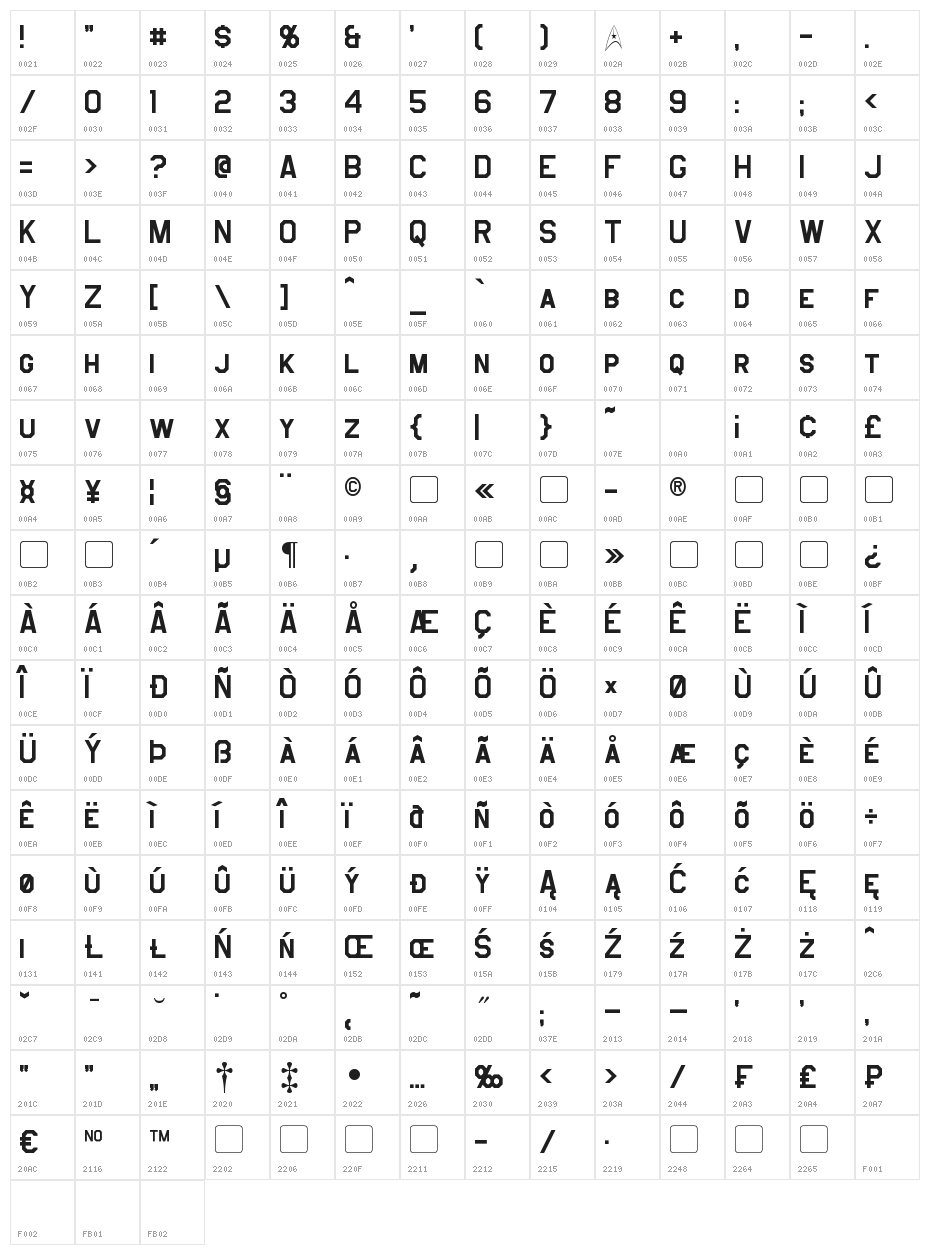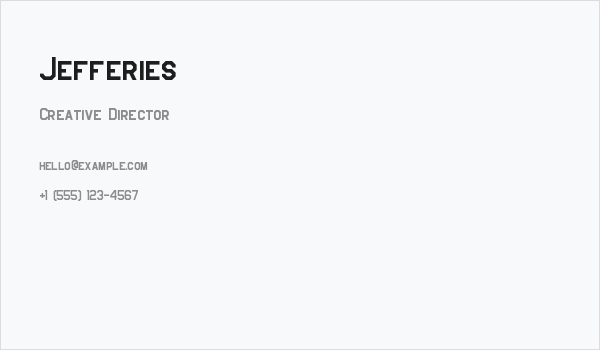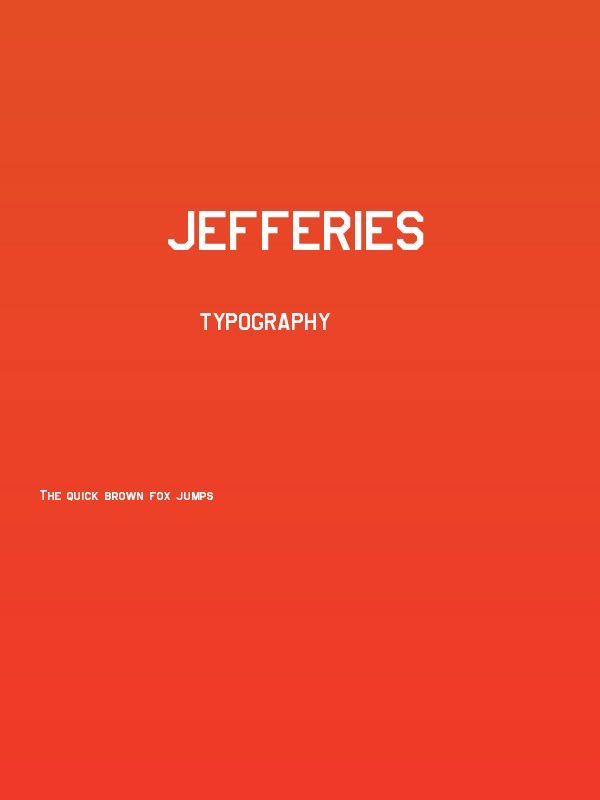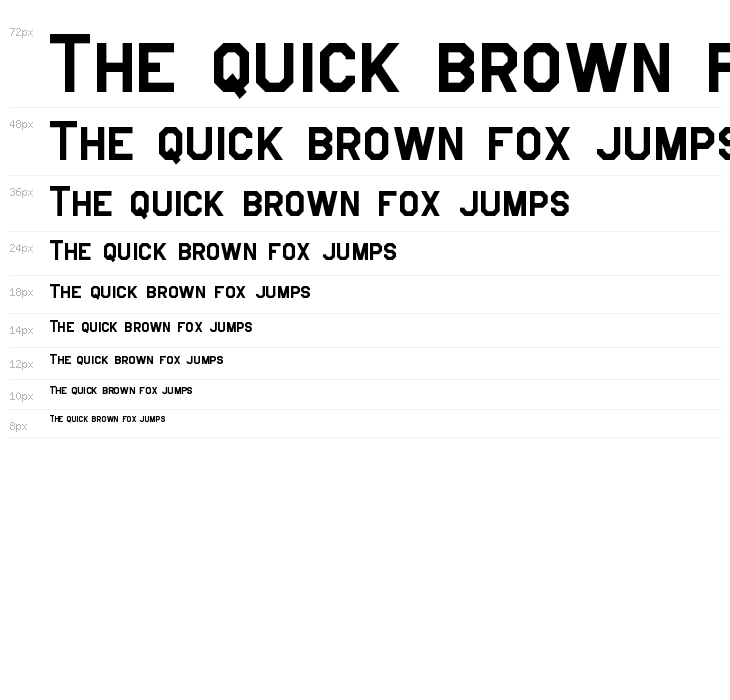
Jefferies Font
Jefferies Description
This font features a bold, geometric design with strong, angular lines and a futuristic aesthetic. The characters are constructed with a consistent thickness, giving them a sturdy and impactful appearance. The uppercase letters are particularly striking, with sharp edges and a modern feel. The numerals and special characters maintain this cohesive style, ensuring uniformity across all glyphs. The font's unique style makes it suitable for projects that require a bold statement or a contemporary look.
| Proposed Projects | Ideal for sci-fi themed projects, branding, posters, and digital interfaces that require a modern and bold typeface. |